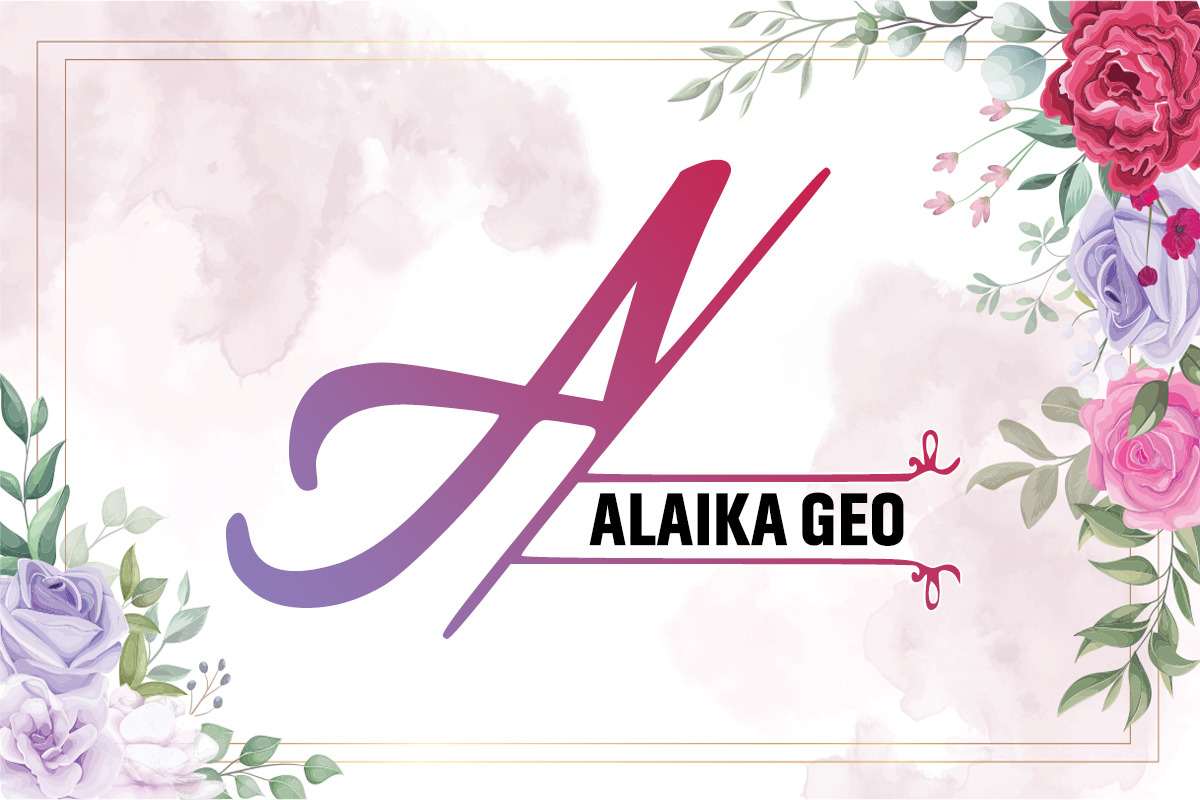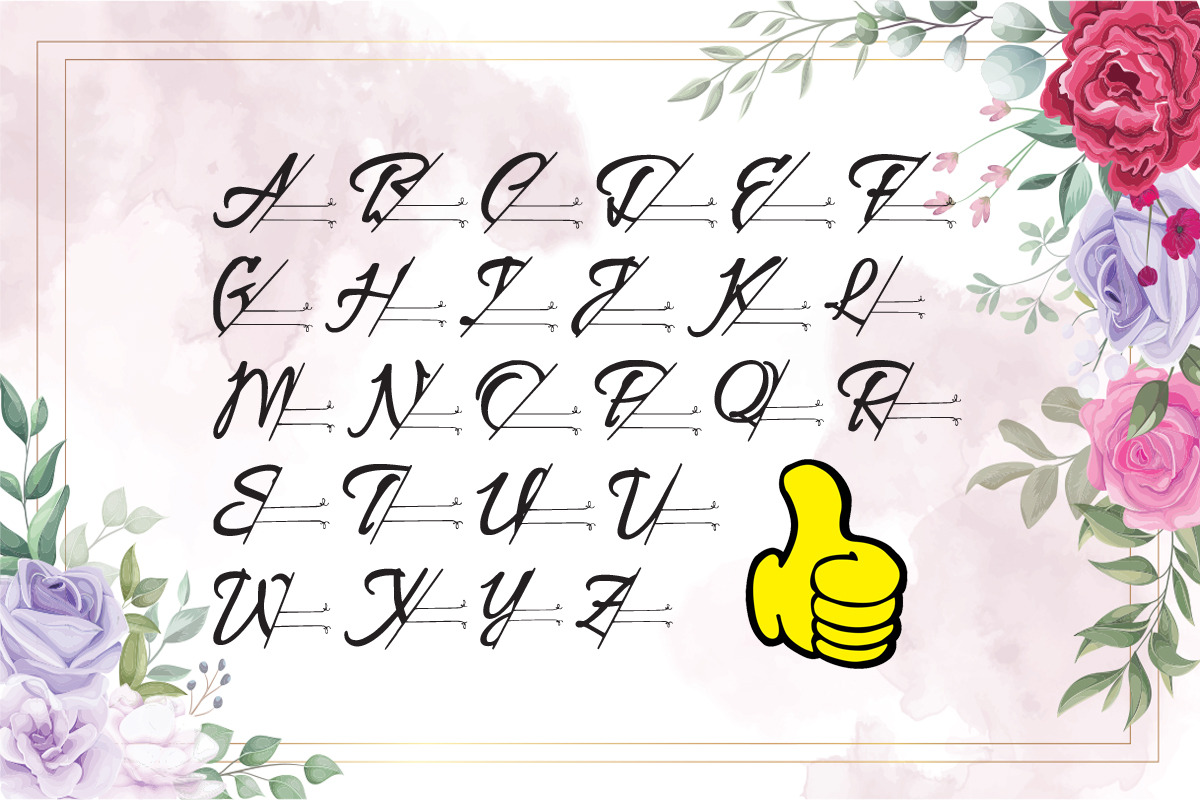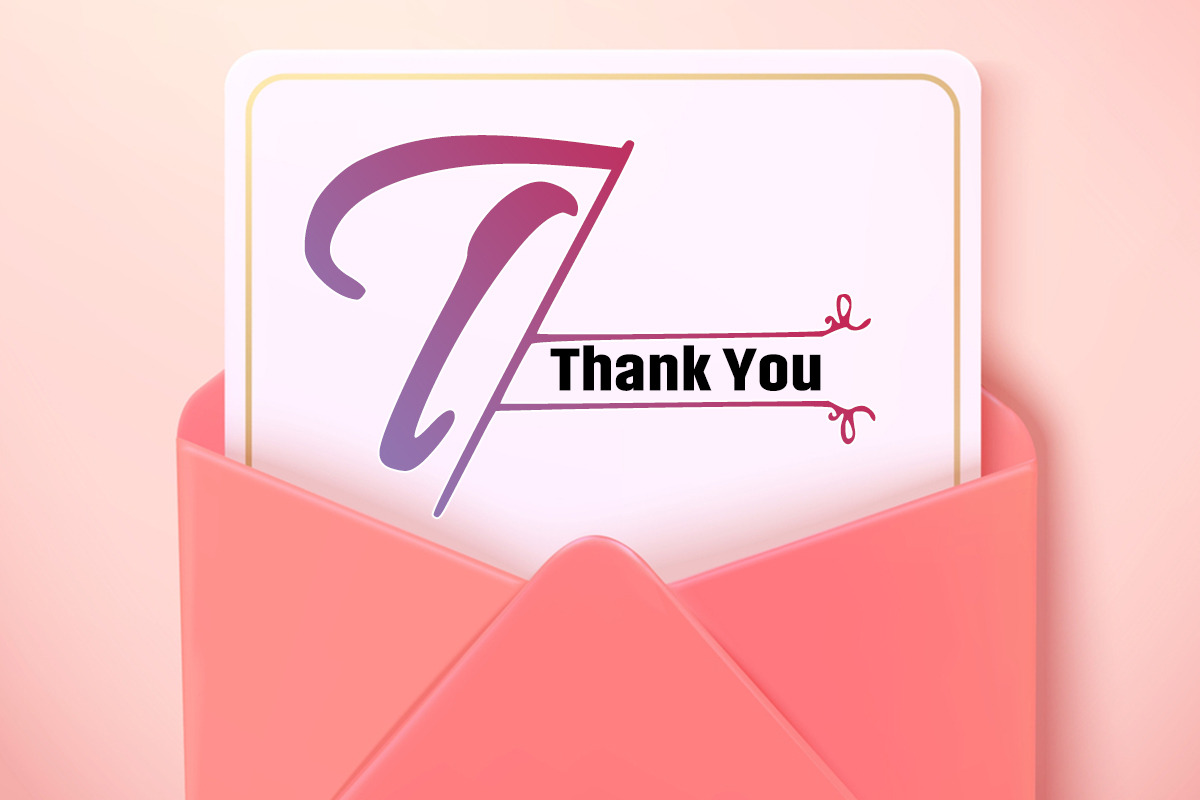
Alaika Geo Font
Alaika Geo is a unique and stylish decorative font. No matter the topic, this font will be an incredible asset to your fonts’ library, as it has the potential to elevate any creation.